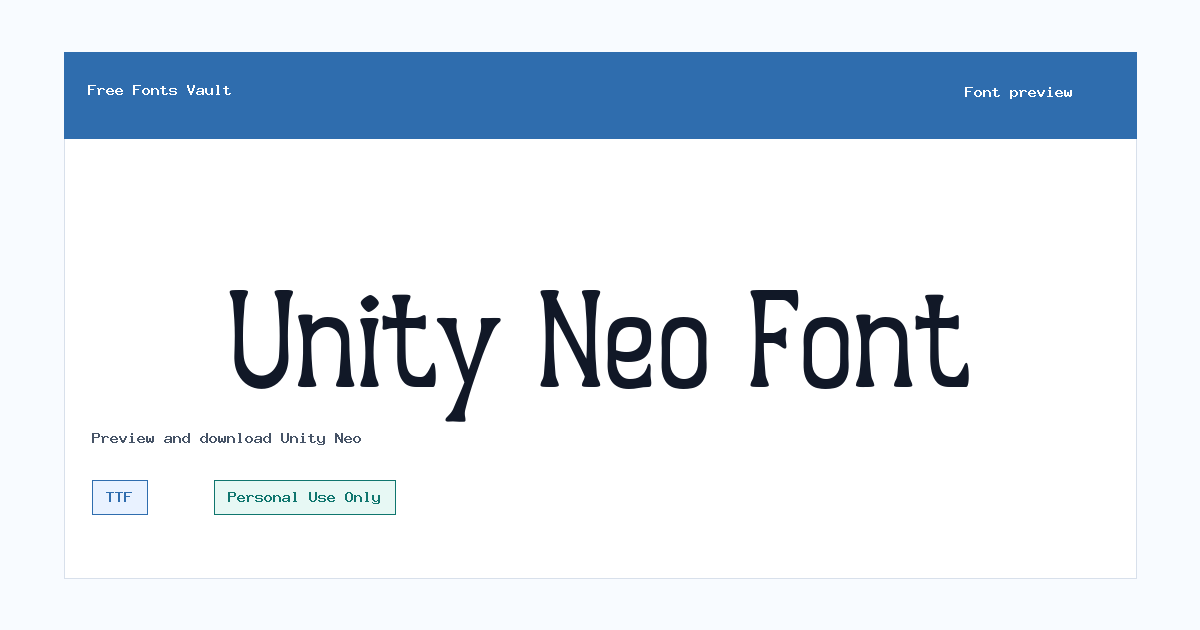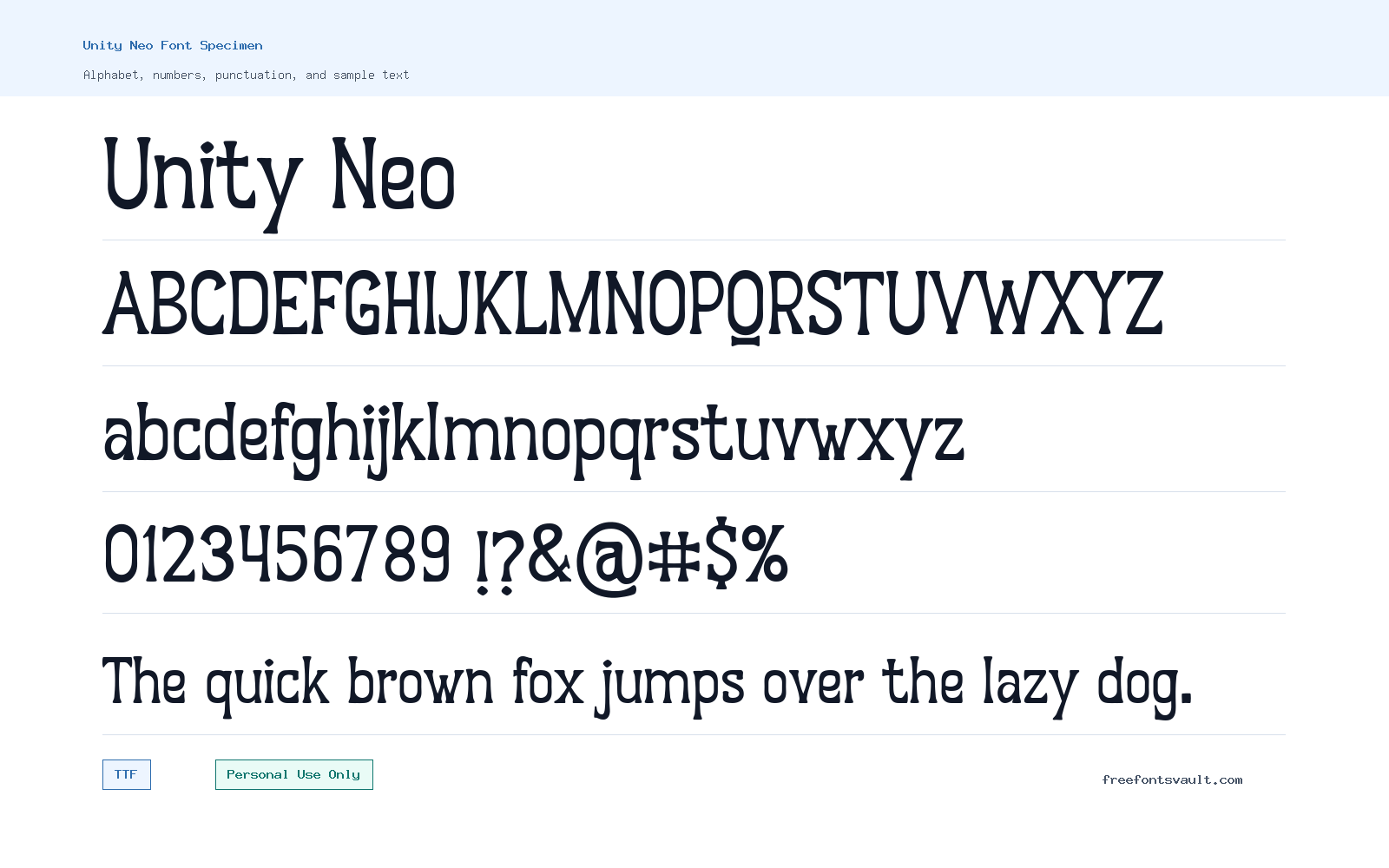
Unity Neo
Unity Neo font preview showing the family name
Unity Neo Font
Unity Neo font specimen showing alphabet, numbers, and sample text
• Designer dian haniff
• Foundry Bearytype Studio
Unity Neo font.
Unity Neo is a serif font with a polished display feel, made for visitors who want to test strong lettering before downloading. The downloadable file is a regular TTF style, so it is easy to install and try in common design apps.
About Unity Neo
Unity Neo works best when the letters have room to show their shape. Use the preview box with short names, title words, initials, and a few punctuation marks before deciding whether it fits your design. It is a better candidate for headings, cover text, invitation-style layouts, personal posters, and decorative name treatments than for long reading text. Because only one regular style is listed, there are no matching bold, italic, or light weights to build a full text system around.
For layout testing, start with a short headline and then try the same words at several sizes. Look closely at spacing between narrow and wide letters, especially combinations like AV, To, Wa, and ly. If the design feels too distinctive in a paragraph, keep Unity Neo for the main wordmark or title and pair it with a quiet sans serif or simple text serif for captions, menus, and body copy. A plain companion font will help the decorative character stand out without making the whole design harder to read.
• Serif display style suited to short titles, names, and decorative personal projects
• Single listed style, so it is simplest to use as an accent rather than a complete brand type system
• Character information from font listings shows basic Latin letters, numbers, punctuation, and selected symbols
• Personal posters, quote graphics, and social mockups
• Invitation headings, name cards, and decorative title treatments
• Logo-style experiments before buying the correct commercial license
• Large preview text where the serif details remain visible
Unity Neo is credited to dian haniff, with Bearytype Studio named as the manufacturer/foundry in font listings and the font’s internal name records.
What kind of font is Unity Neo?
Unity Neo is presented as a serif font with a display-oriented feel, best tested in headings, names, and short decorative text.
Is Unity Neo good for body text?
It is better for short display text. For paragraphs, use a simpler companion font and keep Unity Neo for the main title or accent words.